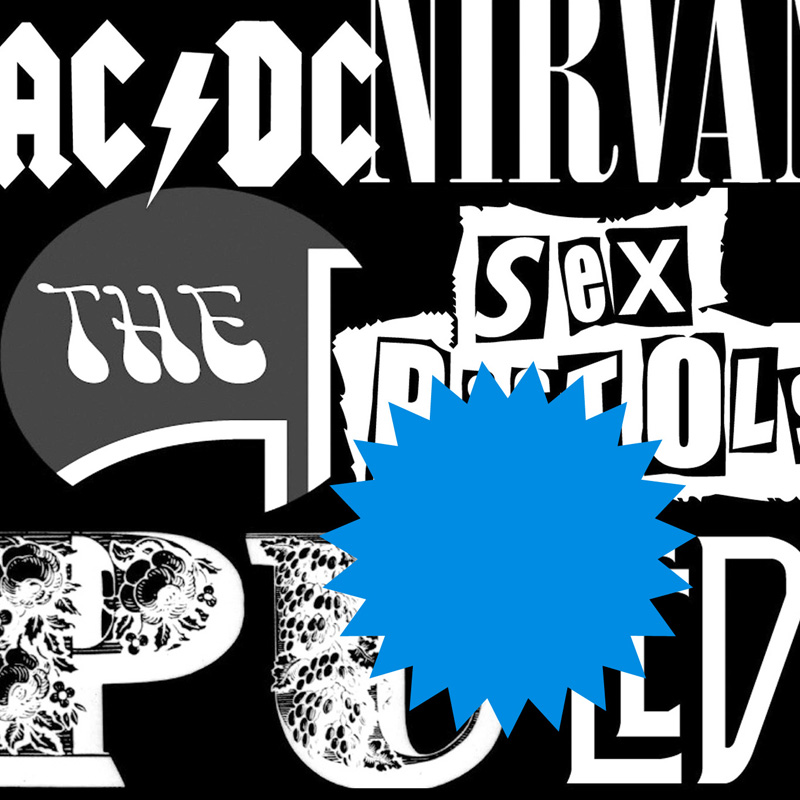
Creative Lockdown Project: Music alphabet
Challenge
What music has been the soundtrack to your time in lockdown? Draw, photograph or take screengrabs of the letters from the names of your favourite bands or album covers. Combine these to make up a word or phrase that describes how the music has made you feel at this time of social distancing.
Results
Come on a journey through the iconic typography found in a record collection. Discover how typography reflects pop culture and nostalgia. Experience how coming across a record from your teenage years can give you a Proustian memory-rush. You’re invited to send in your favourite album cover lettering in advance so that we can create a typographic playlist.